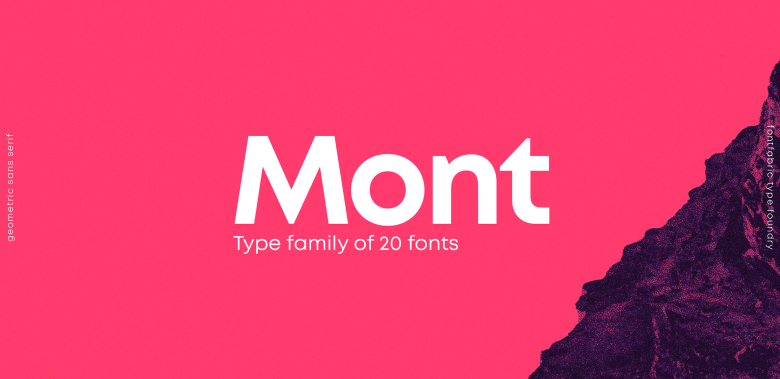
Mont Font Family
Introducing Mont! It is designed and shared by Fontfabric. Mont is a geometric sans serif consisting of 10 weights plus corresponding italics. Its distinctive characteristics and balanced x-height makes it perfect for headlines and logos but also suitable for long text.
Mont comes with a complete range of OpenType features — including proportional and old style figures, each in its tabular version. It also includes advanced typographic features such as ligatures, fractions, case-sensitive forms, superscripts and subscripts. The typeface’s versatility and merits make it easy to confront any graphic design challenge — web, print, motion graphics etc.